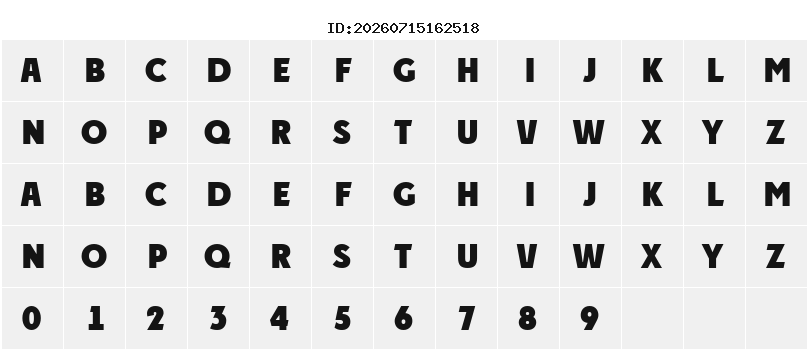
About a_PlakatTitul.ttf
a_PlakatTitul.ttf is a modern, elegant sans-serif font designed for ultimate readability and visual harmony. Perfect for branding, headlines, web design, and print materials.